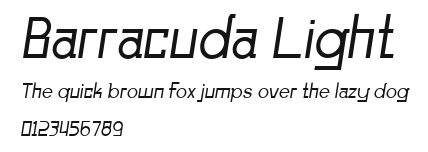
Barracuda Light Preview
• Font Name: Barracuda Light
• Full Font Name: Barracuda Light Italic
About Barracuda Light.ttf
Barracuda Light.ttf is a modern, elegant sans-serif font designed for ultimate readability and visual harmony. Perfect for branding, headlines, web design, and print materials.